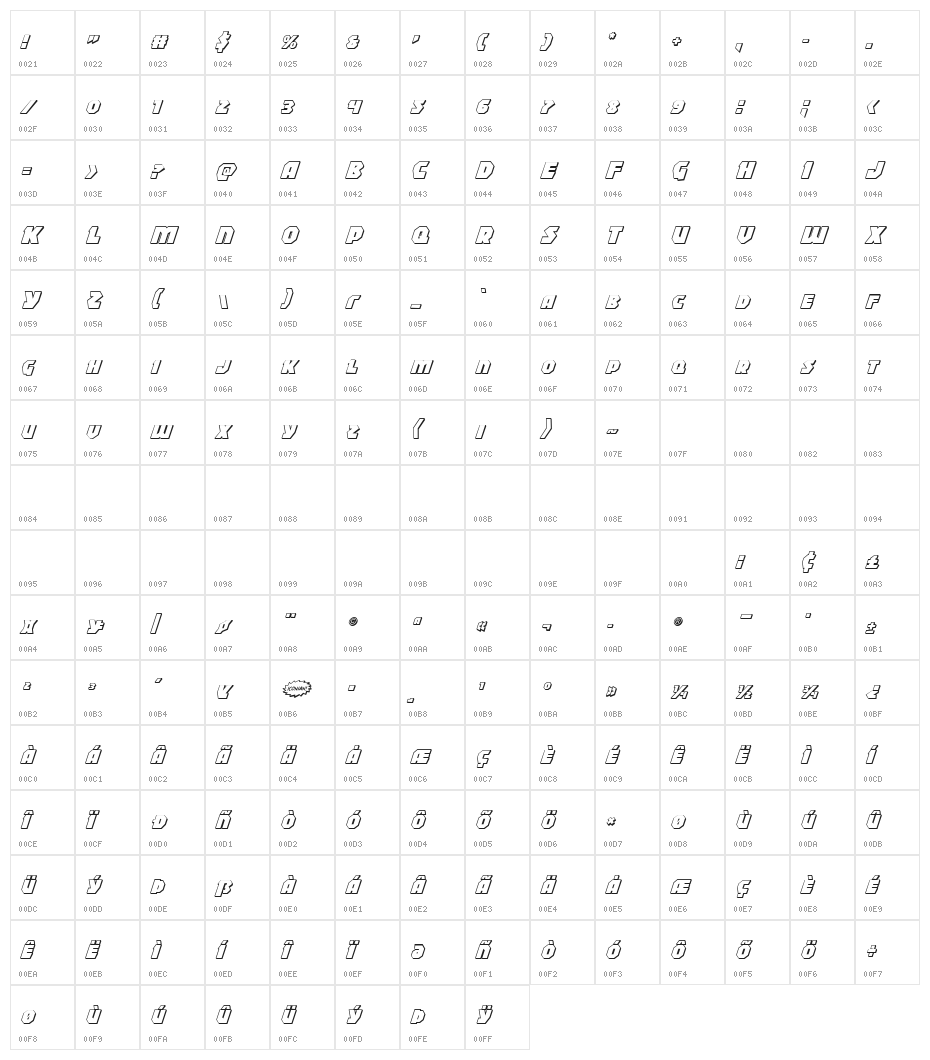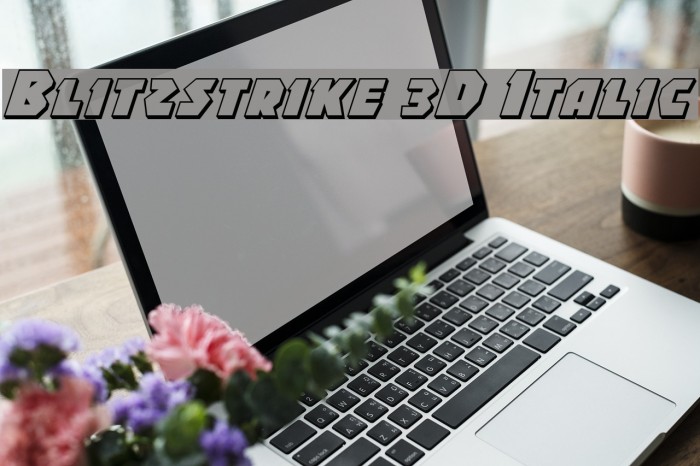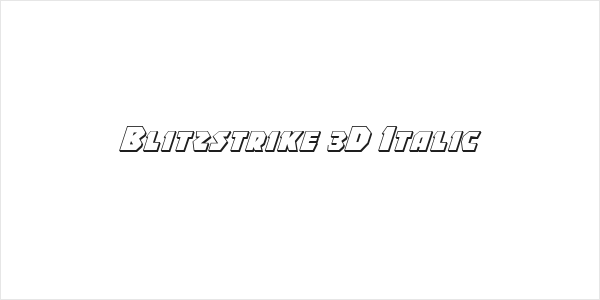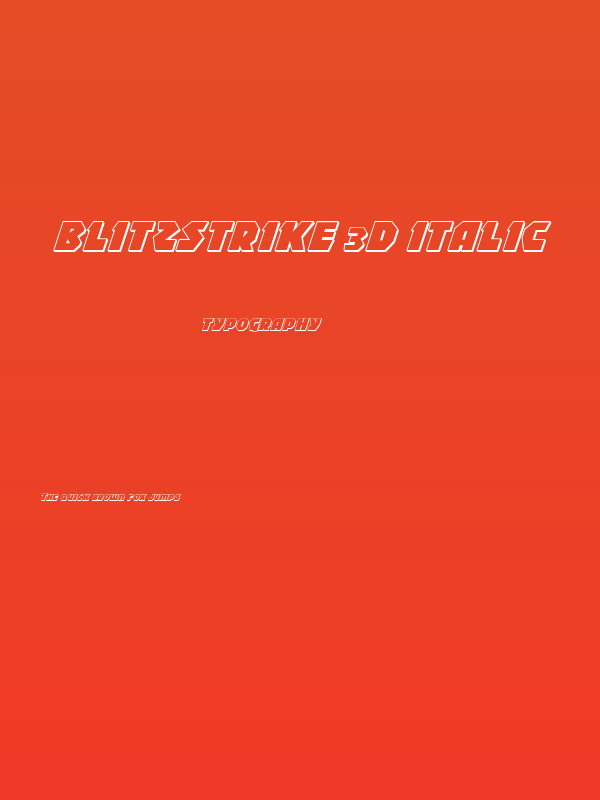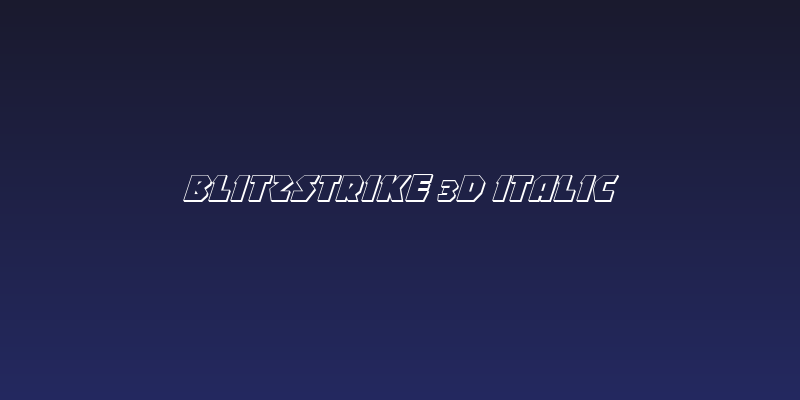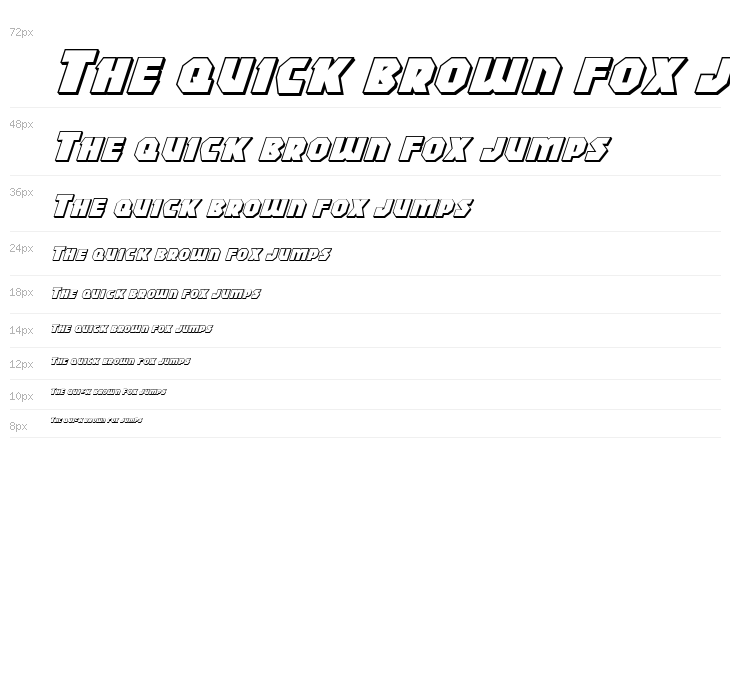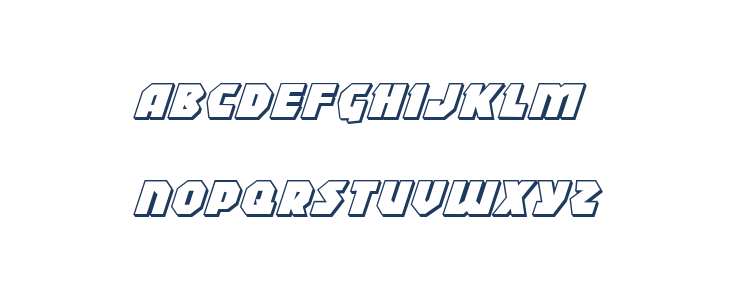
Blitzstrike 3D Italic Font
Blitzstrike 3D Italic Description
This font features a bold, three-dimensional design with an italic slant, giving it a dynamic and impactful appearance. The characters are blocky and angular, with a strong presence that makes them stand out. The 3D effect is achieved through a clever use of shading and perspective, adding depth and a sense of motion. The uppercase and lowercase letters maintain a consistent style, with the numbers and special characters following suit. This font is ideal for projects that require a bold statement and a modern, edgy look.
| Proposed Projects | Perfect for video game titles, sports branding, action movie posters, and dynamic advertising campaigns. |